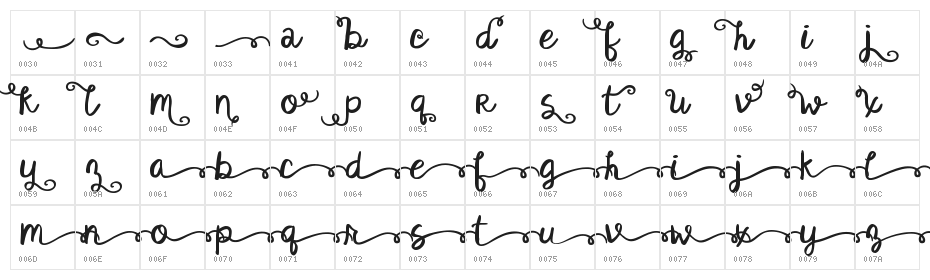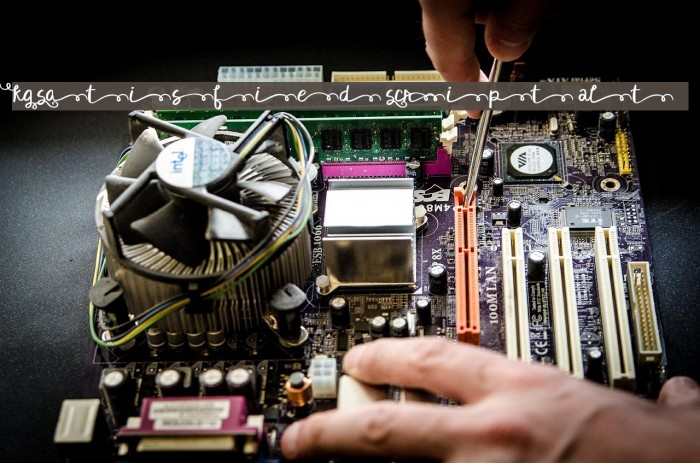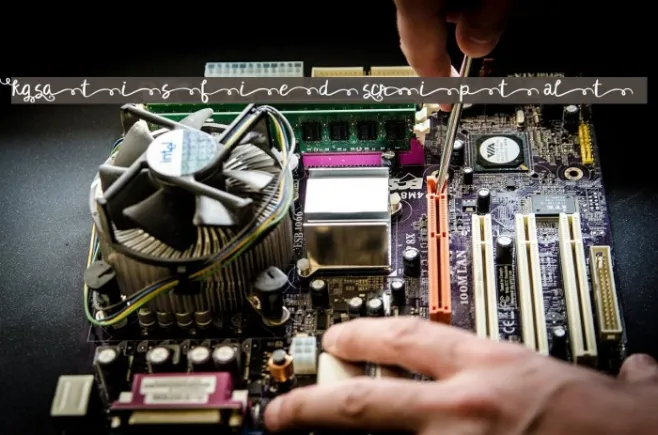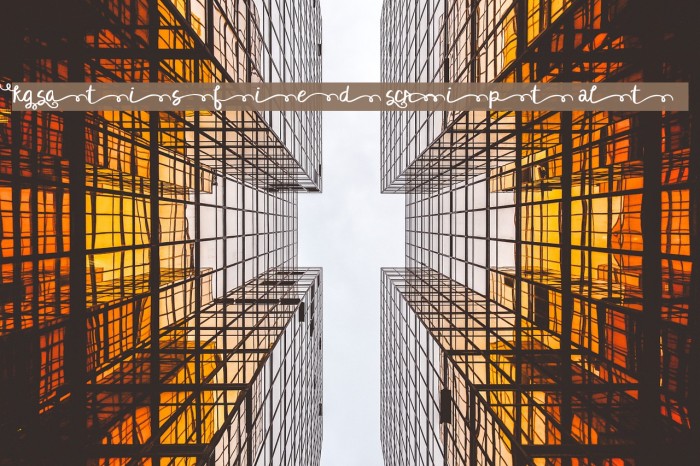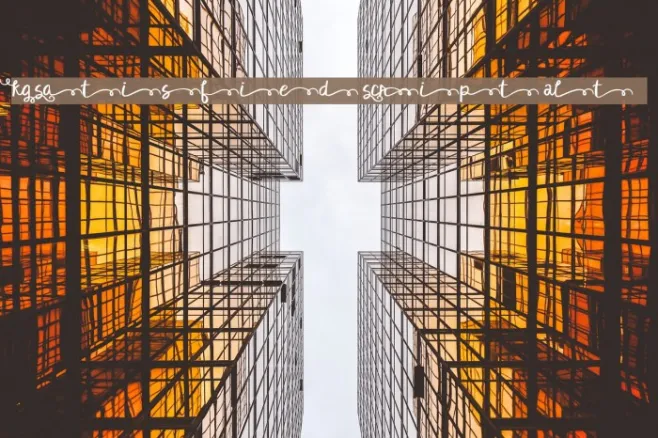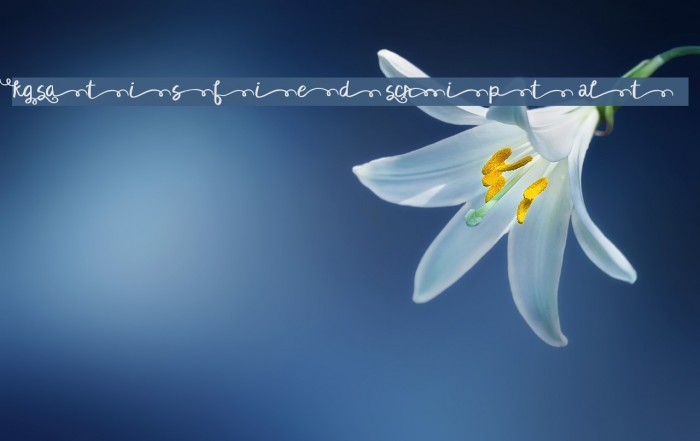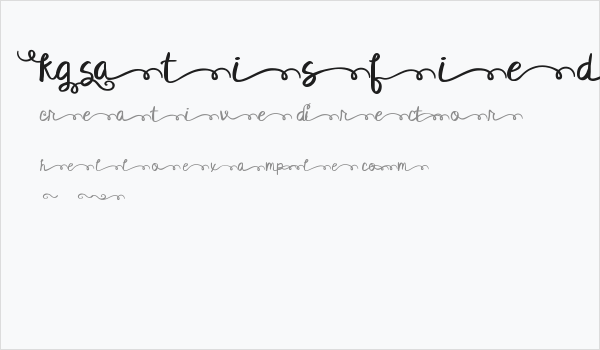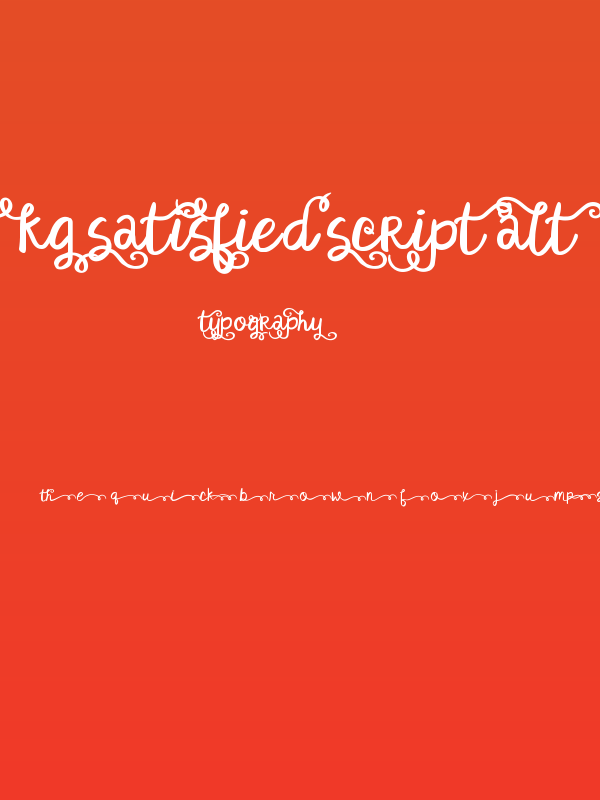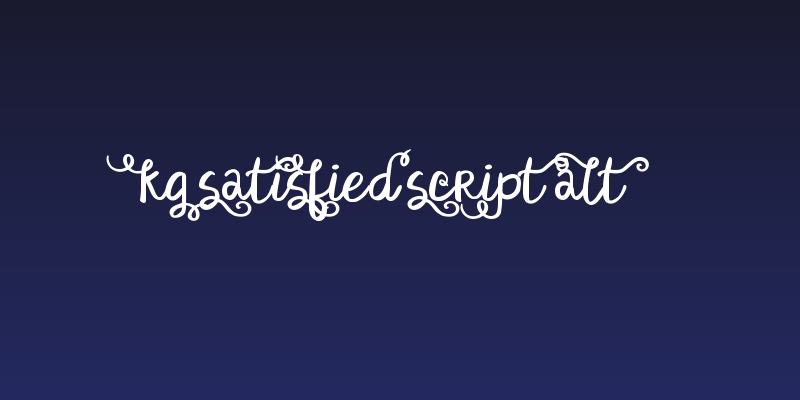
KG Satisfied Script Alt Font
KG Satisfied Script Alt Description
This font features an elegant, flowing script style with intricate swirls and loops, giving it a whimsical and artistic appearance. The characters are highly decorative, with each letter seamlessly connecting to the next, creating a continuous and fluid look. The uppercase letters are bold and prominent, while the lowercase letters maintain a delicate and graceful form. The overall design is ornate, making it suitable for projects that require a touch of sophistication and flair. The font's unique style is perfect for creative and expressive designs.
| Use Case | Logos, Invitations, Decorative Text |
| Proposed Projects | Ideal for wedding invitations, greeting cards, branding, and decorative signage. |